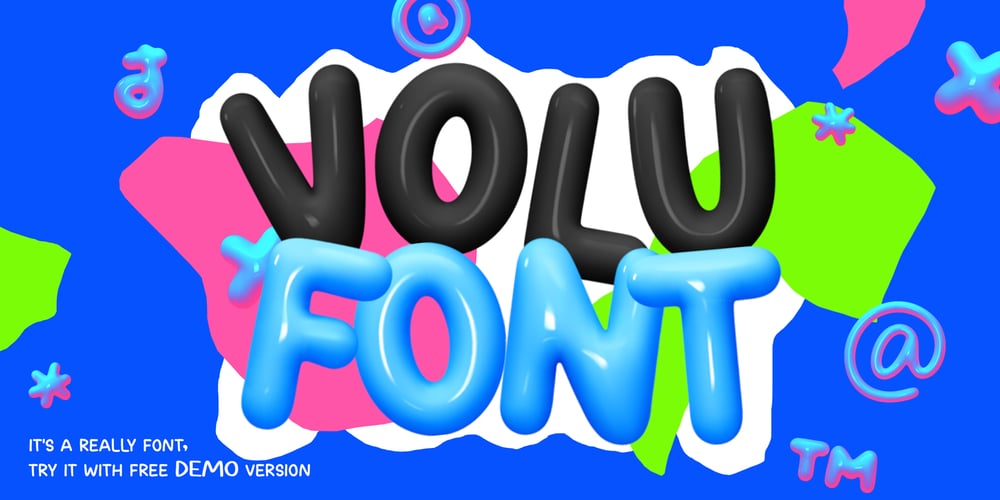
Volufont Font Family was designed by Lauritta Ivanova and published by Luxfont. Volufont contains 9 styles and family package options. Unique color 3D font family Volufont. Each letter is created with true three-dimensional volume. Emitting a glossy plastic sheen, these typefaces seamlessly combine modern aesthetics with on-trend designs.Features:- Real Plastic effect- Multilingual- Ability to adapt 3D letters to other languages- KerningIMPORTANT:- Check the glyphs in the font before buying!- SVG fonts contain raster letters.- Check it www.colorfonts.wtf – Try a FREE DEMO version before buying. ld.luxfont@gmail.com